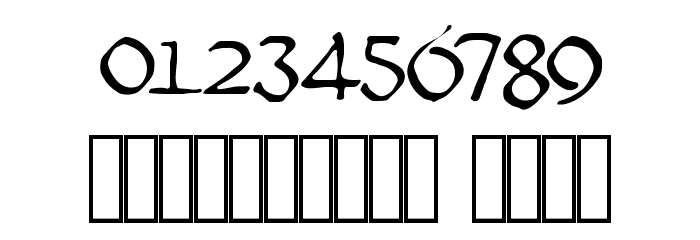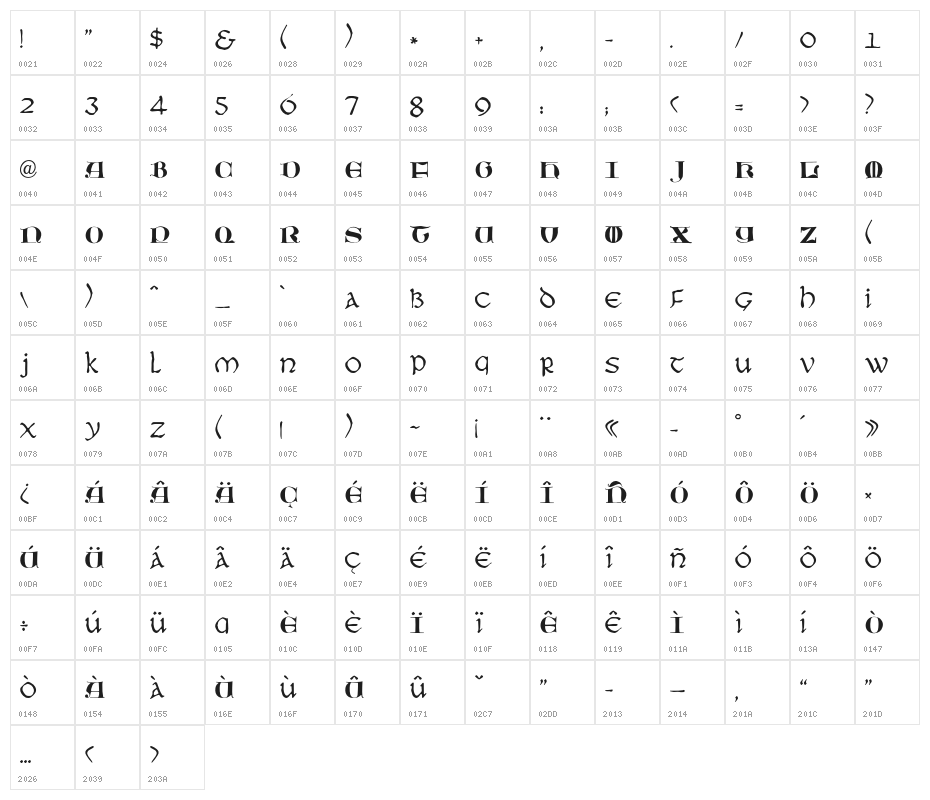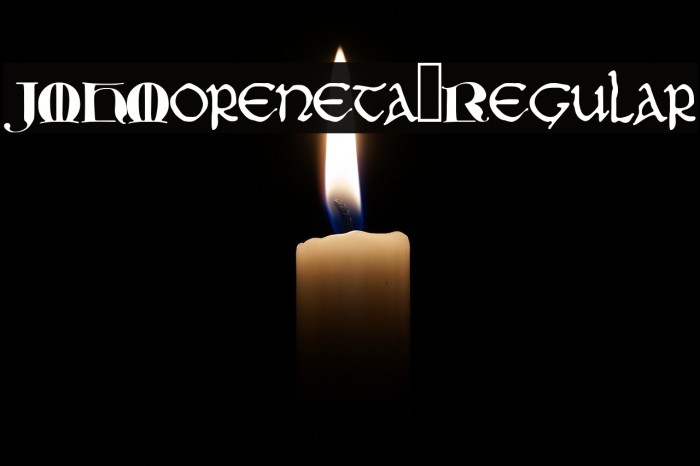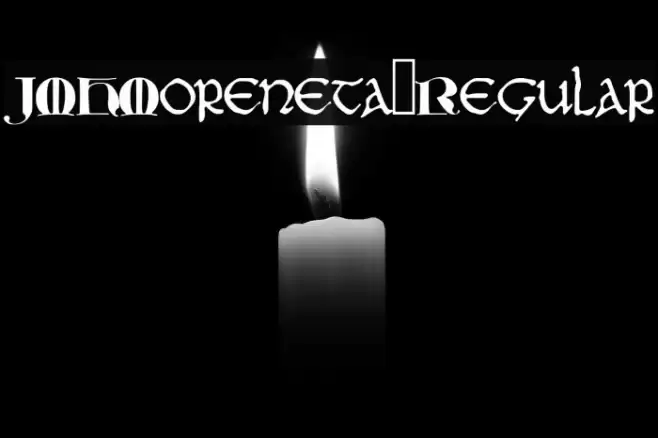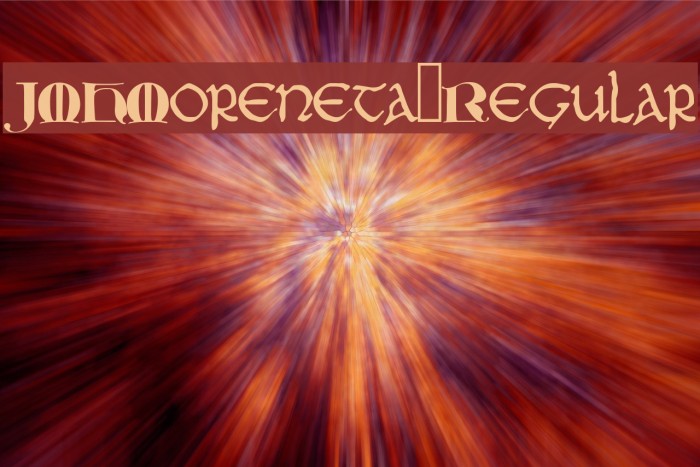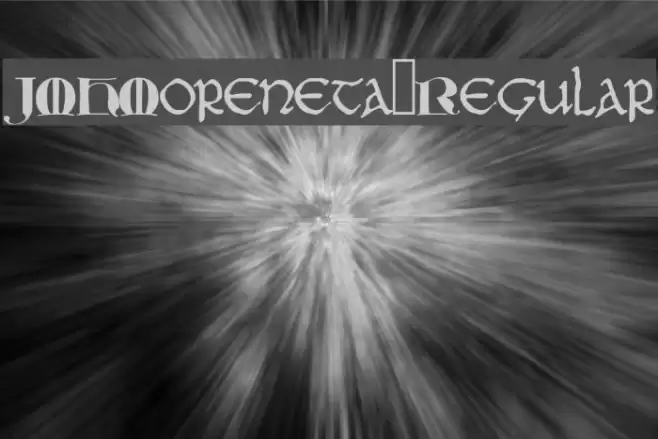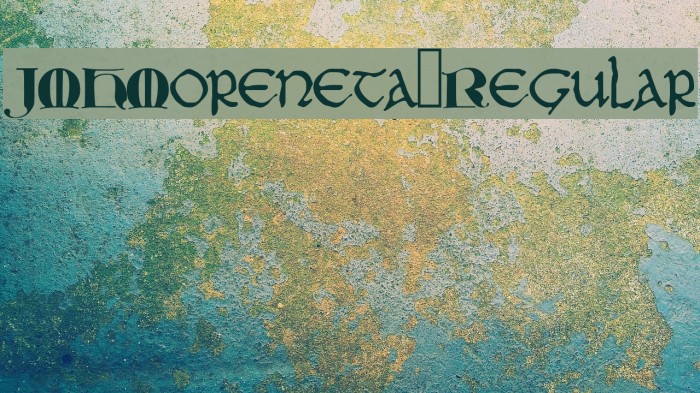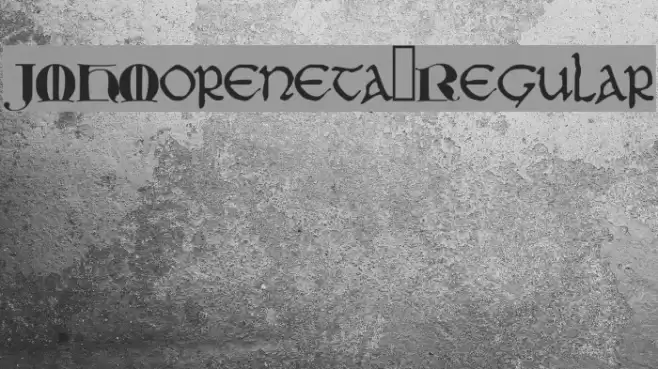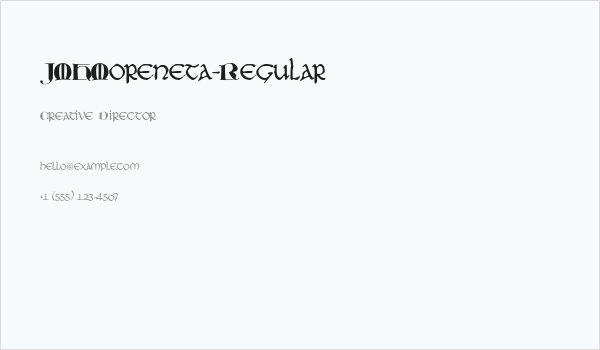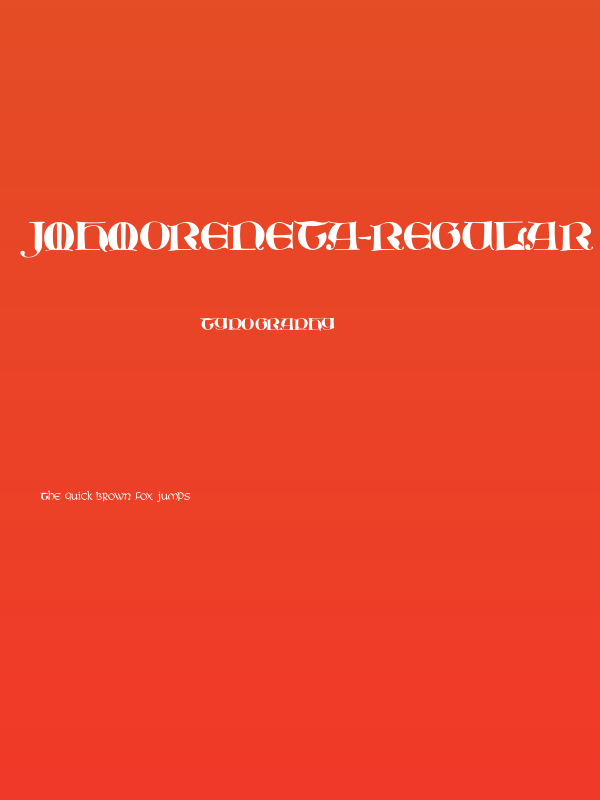
JMHMoreneta-Regular Font
JMHMoreneta-Regular Description
This font features a distinctive blend of medieval and modern elements, characterized by its bold and dramatic strokes. The uppercase letters exhibit a strong, angular form with unique serifs that give a gothic feel, while the lowercase letters maintain a more fluid and organic shape, adding a touch of elegance. The numerals are consistent with the overall style, offering a cohesive appearance. The special characters are creatively designed, maintaining the font's thematic consistency. This font stands out with its high contrast between thick and thin strokes, making it ideal for impactful visual statements.
| Proposed Projects | Ideal for branding, posters, book covers, and any project requiring a strong, historical aesthetic. |